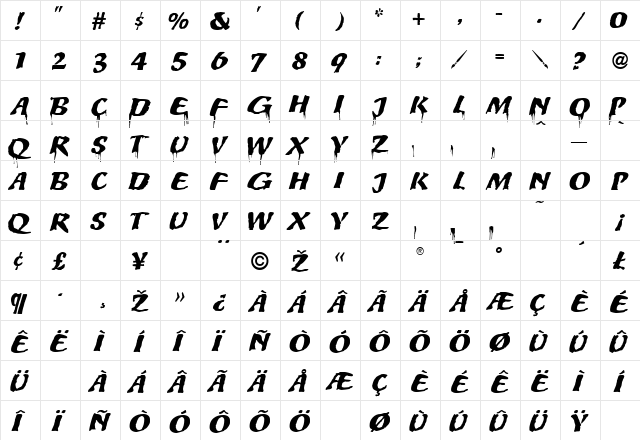
Protest Regular Font Preview
Protest Regular
Design Context for Protest Typeface
Protest is a composed and adaptable typeface that performs quietly and consistently across a wide range of design contexts.